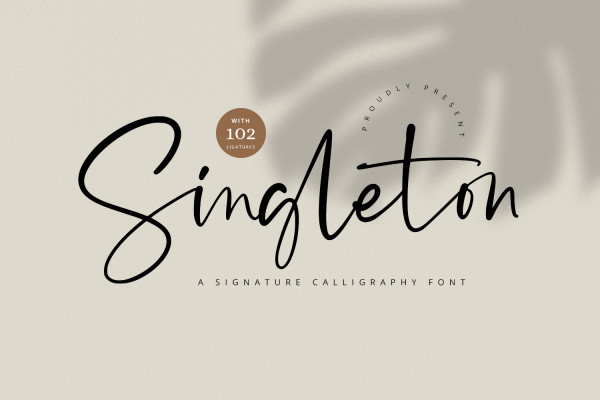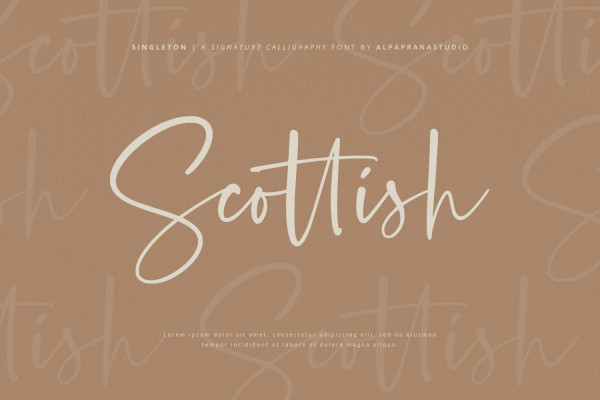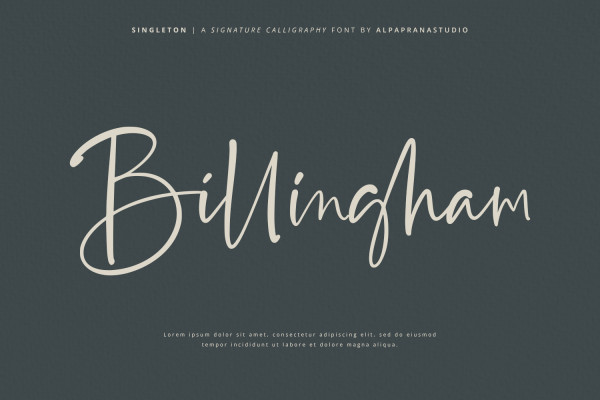
Singleton Font
Singleton Font is a signature font with natural and modern feels. It will be perfectly used for Branding, Logo Design, Lettering, Logotype, Clothing, Poster, magazine, packaging, posters, shopping bags, t-shirts, book covers, photography, special events and other design project.